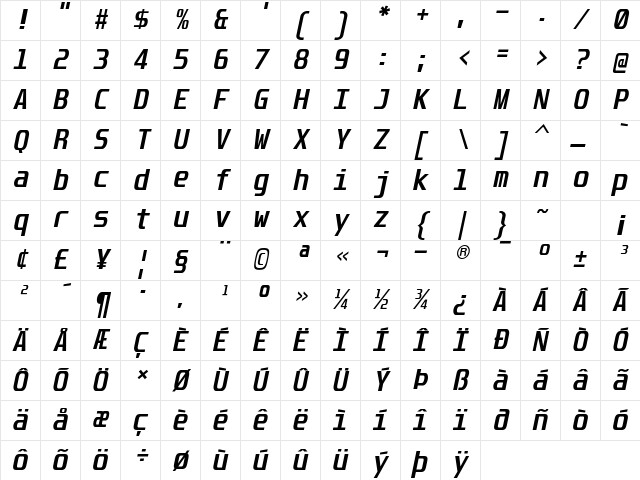
Unispace Bold Italic
Complete Unispace Bold Italic glyph index. Displaying only characters natively supported by Unispace Bold Italic font.
Design Context for Unispace
Unispace is a composed and adaptable typeface that performs quietly and consistently across a wide range of design contexts. The slanted form adds forward momentum and visual energy. Its bold stroke weight gives it real presence on the page.
Pro Tip: Use Unispace for emphasis, pull quotes, and subheadings where its slanted energy can add rhythm to the layout.